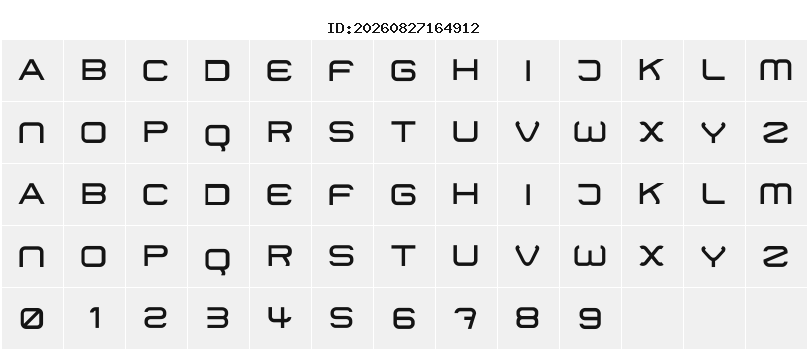
• Font Name: 01 DigitMono
• Designer: David Chung
About 01 DigitMono.ttf
01 DigitMono.ttf is a modern, elegant sans-serif font designed for ultimate readability and visual harmony. Perfect for branding, headlines, web design, and print materials.